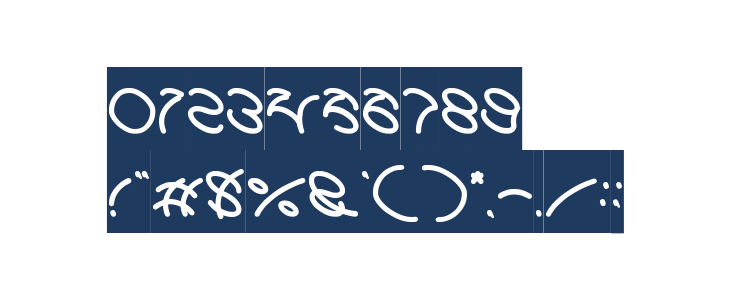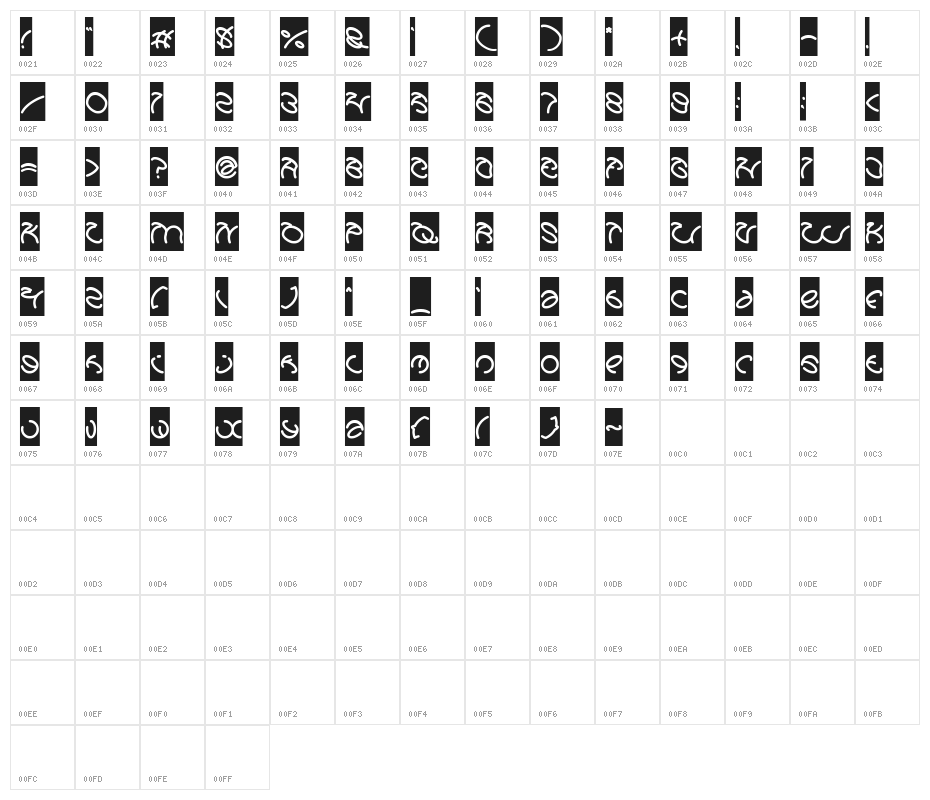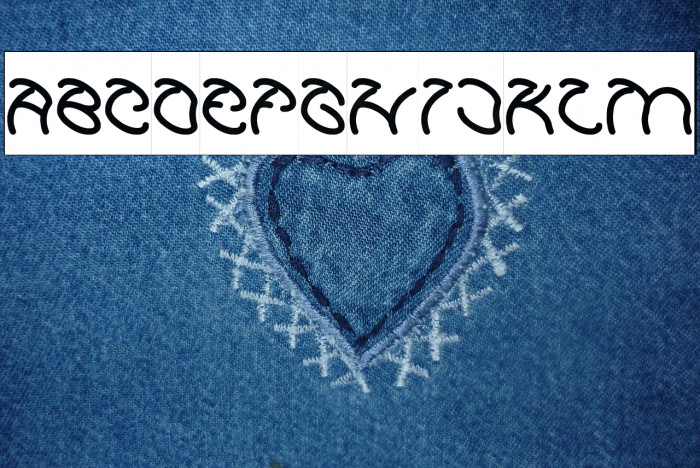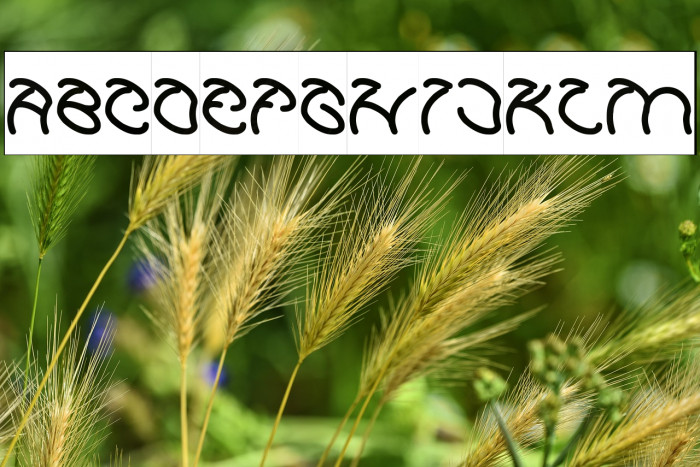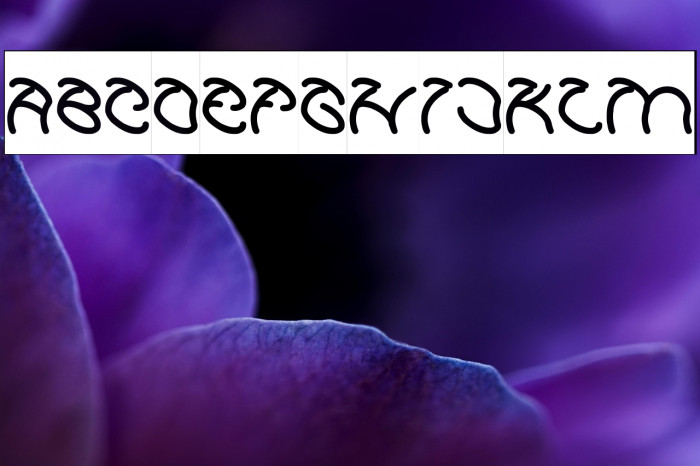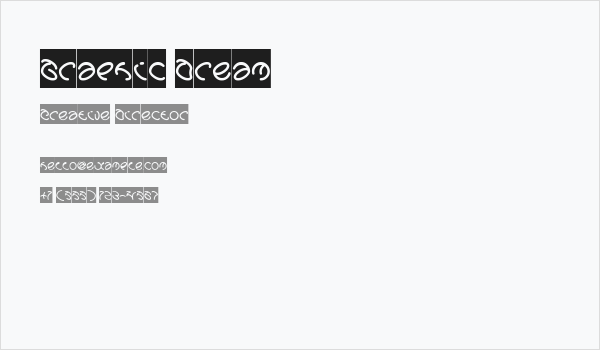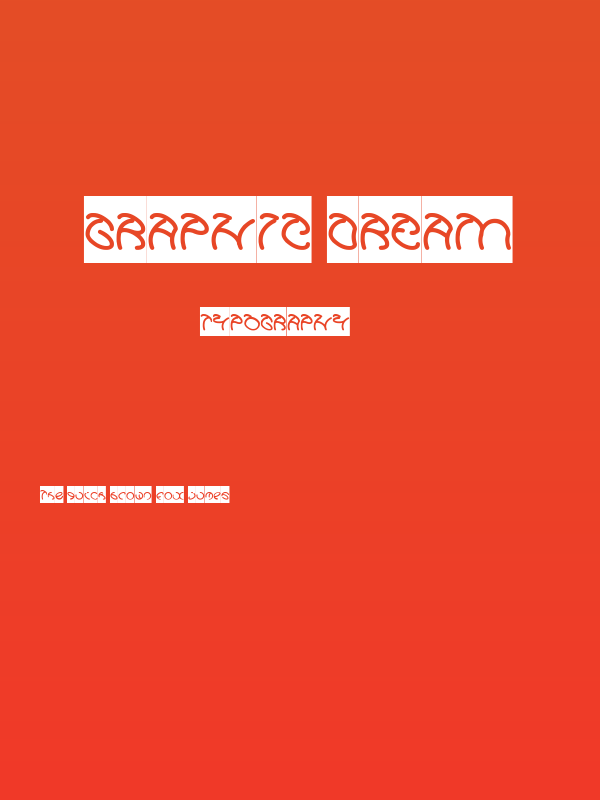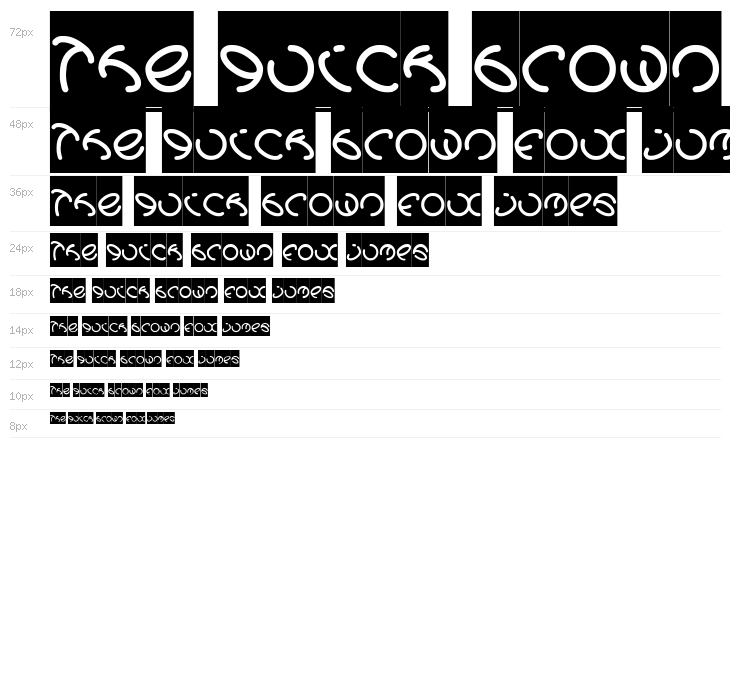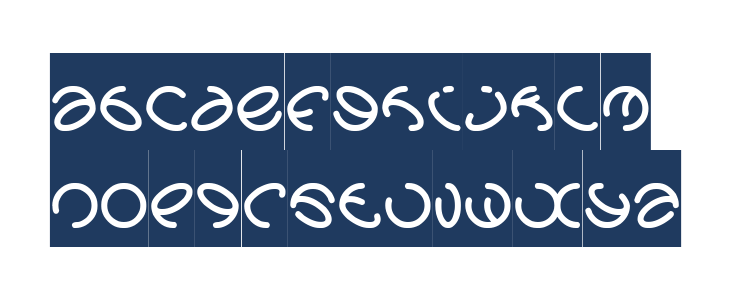
Graphic Dream Font
Graphic Dream Description
This font features a unique, artistic design with a flowing, curvilinear style that resembles hand-drawn calligraphy. The characters are composed of smooth, continuous strokes that create a sense of movement and elegance. The uppercase and lowercase letters maintain a consistent style, with rounded edges and a playful, whimsical appearance. The numbers and special characters follow the same aesthetic, ensuring a cohesive look across all glyphs. This font's distinctive style makes it stand out, offering a creative and modern twist on traditional script fonts.
| Overall Style | Modern, Artistic |
| Use Case | Logos, Invitations, Artistic Posters |
| Proposed Projects | Ideal for creative projects such as invitations, greeting cards, artistic posters, and branding materials that require a unique and elegant touch. |